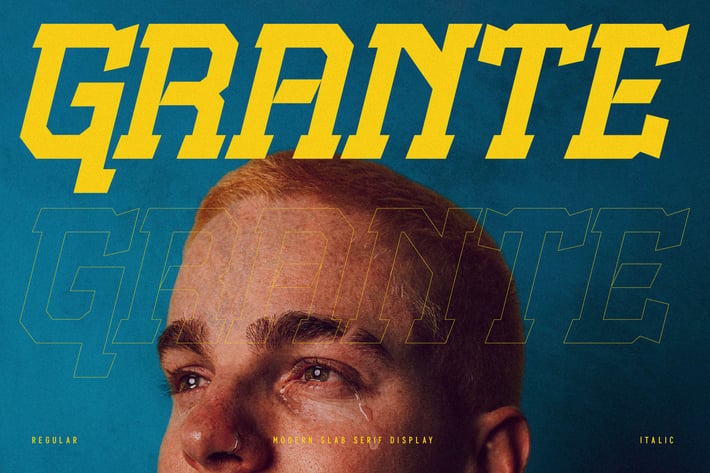
Grante Modern Slab Serif Font Display Font
Grante is a bold modern slab serif display font that commands attention with its strong geometric shapes and sharp edges. Perfectly designed for impactful titles, sports themes, and dynamic branding, Grante combines power with modern aesthetics to make your message stand out loud and clear.
+ Modern slab serif display style
+ Uppercase, lowercase, numbers & punctuation
+ Alternates & stylistic sets
+ Multilingual support
+ Sports branding & team identities
+ Posters & flyers
+ Headlines & titles
+ Streetwear & urban design
+ Logos & badges
+ Digital marketing graphics
Make your designs bold and unforgettable with Grante — a modern slab serif font built for impact and style.